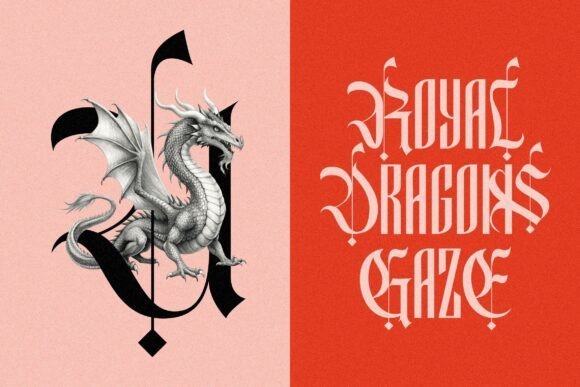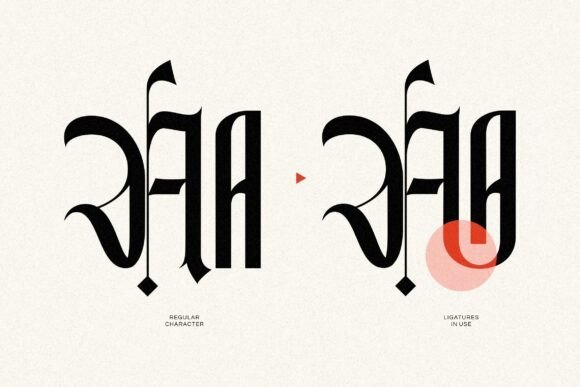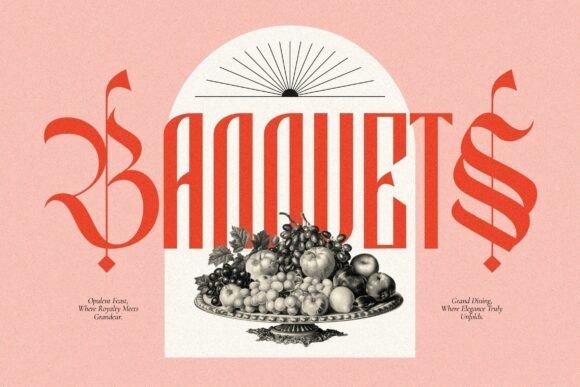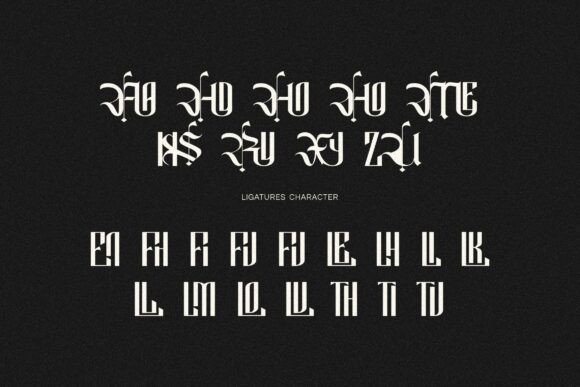
Rumonds Font
Rumonds is a unique blackletter display font that showcases a modern twist on the traditional Gothic style with sharp, pointed serifs and vertical emphasis, as well as thick vertical strokes. The complexity of the letters, with numerous embellishments and curved strokes, adds to the ornate and elaborate nature of the font.